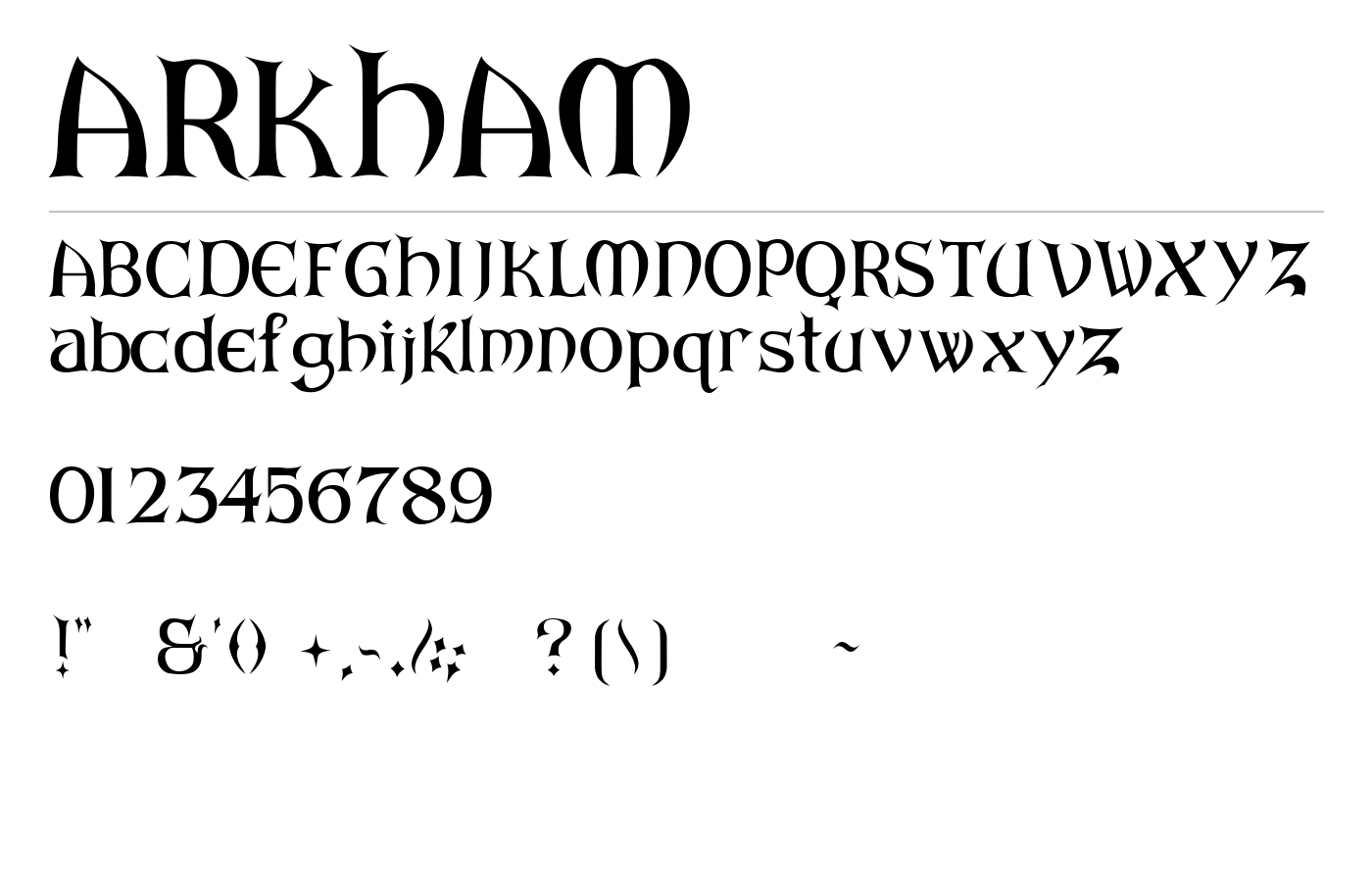
ARKHAM is a distinct serif font that combines dramatic, sharp strokes with a gothic, medieval-inspired style. Its tall, slightly condensed letterforms with high contrast and pointed serifs create an eerie, mysterious atmosphere, making it ideal for fantasy, horror themes, or vintage-inspired branding. This font works best in headlines, logos, or decorative uses where a striking, unique character is desired.
ARKHAM Font
About ARKHAM Font